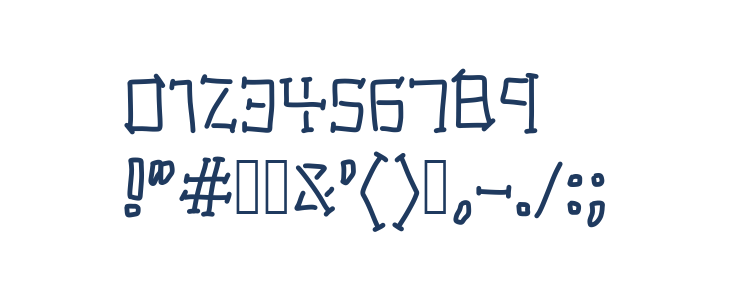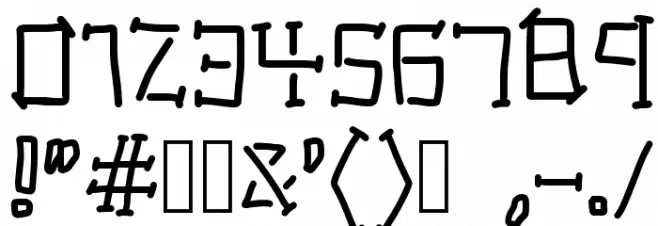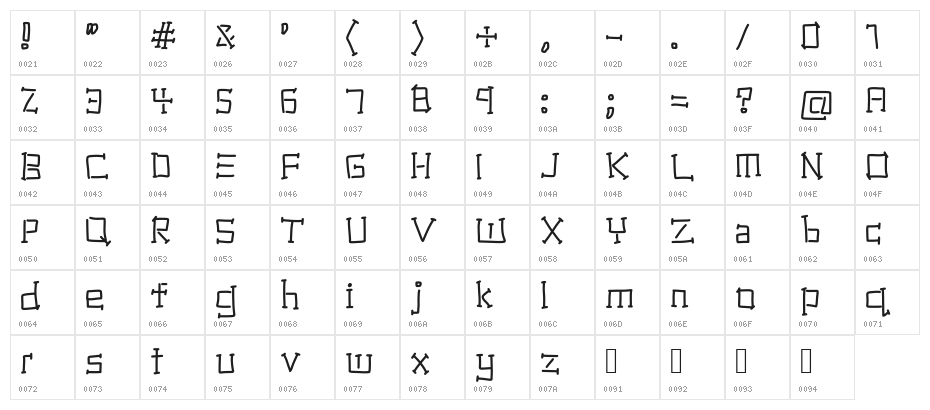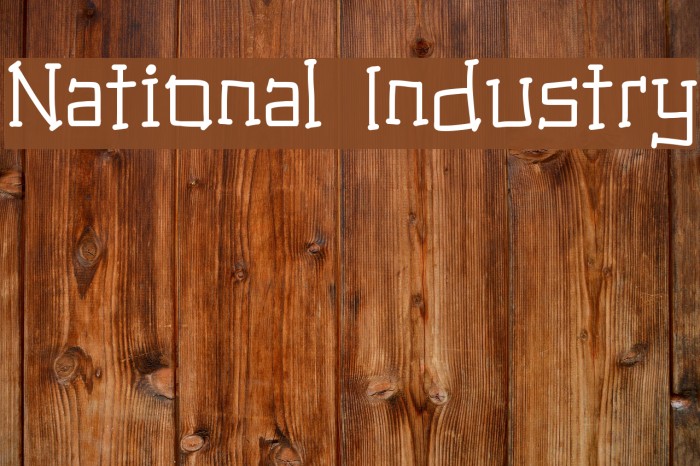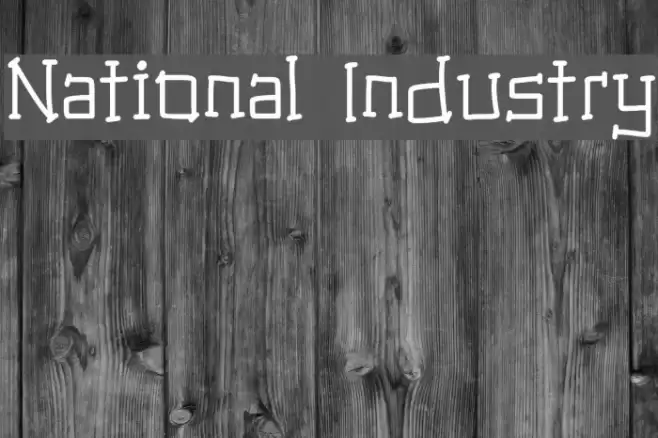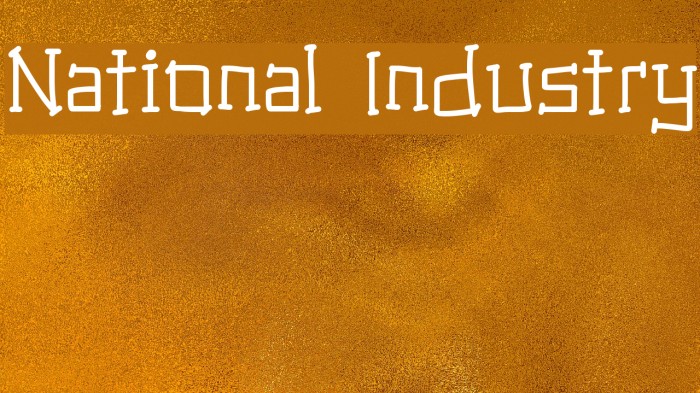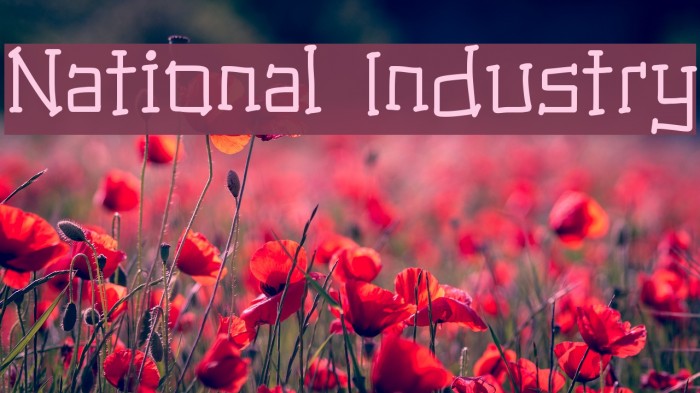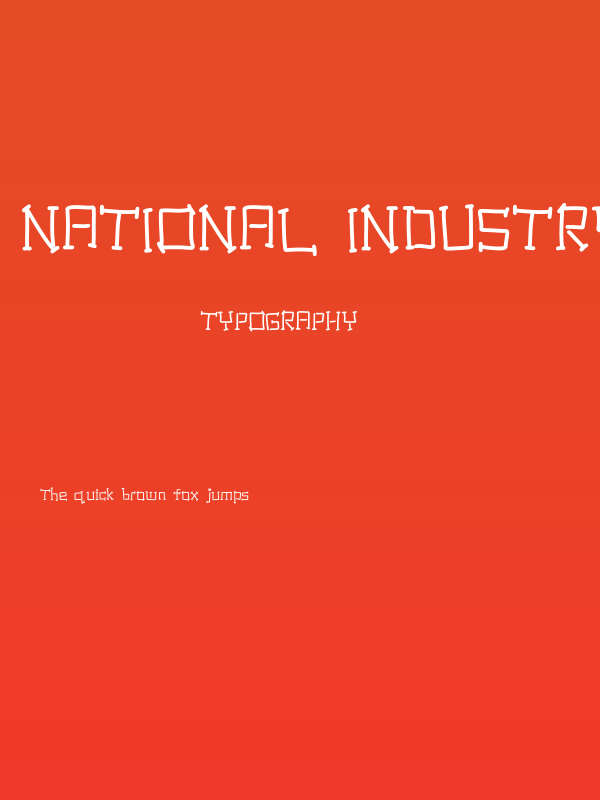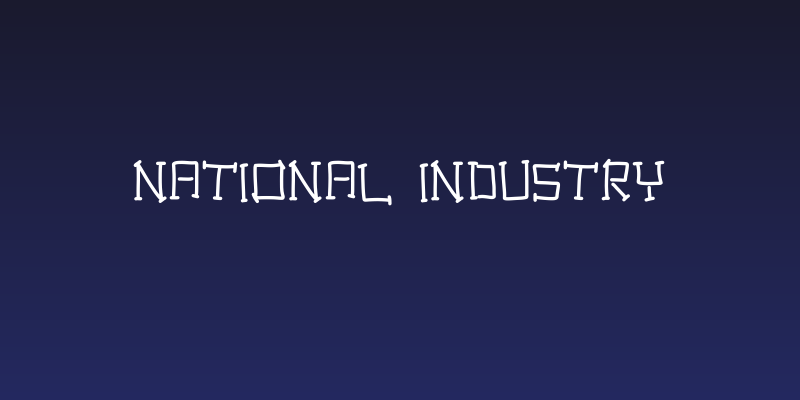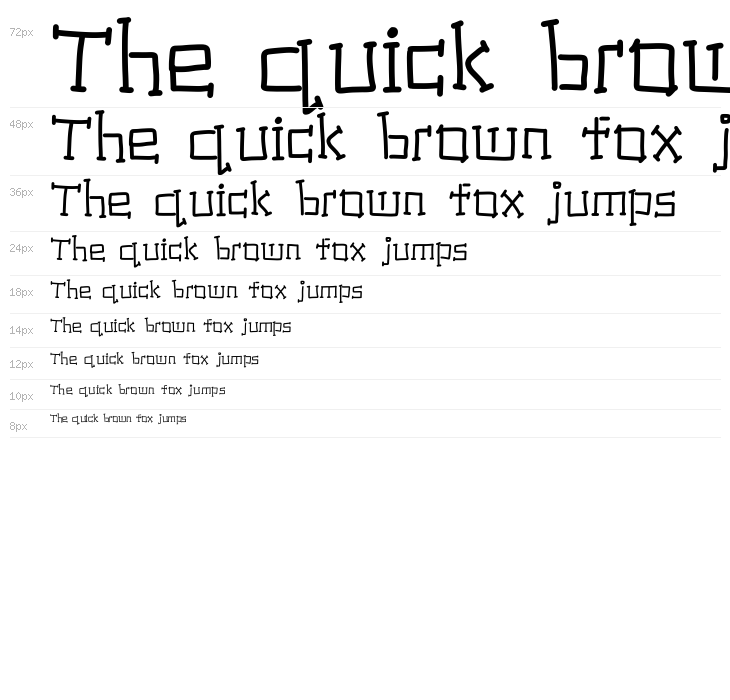
National Industry Font
National Industry Description
This font features a unique industrial style with a mechanical and geometric appearance. The characters are constructed with a combination of straight lines and rounded edges, giving them a distinctive, almost robotic look. The uppercase and lowercase letters maintain a consistent height, contributing to a uniform appearance. The numerals and special characters follow the same design principles, ensuring cohesion across all glyphs. The font's structure is bold and assertive, making it suitable for attention-grabbing designs. Its unconventional style makes it stand out, ideal for projects that require a modern and edgy aesthetic.
| Overall Style | Modern, Industrial |
| Proposed Projects | Ideal for branding, posters, and signage that require a modern, industrial feel. |